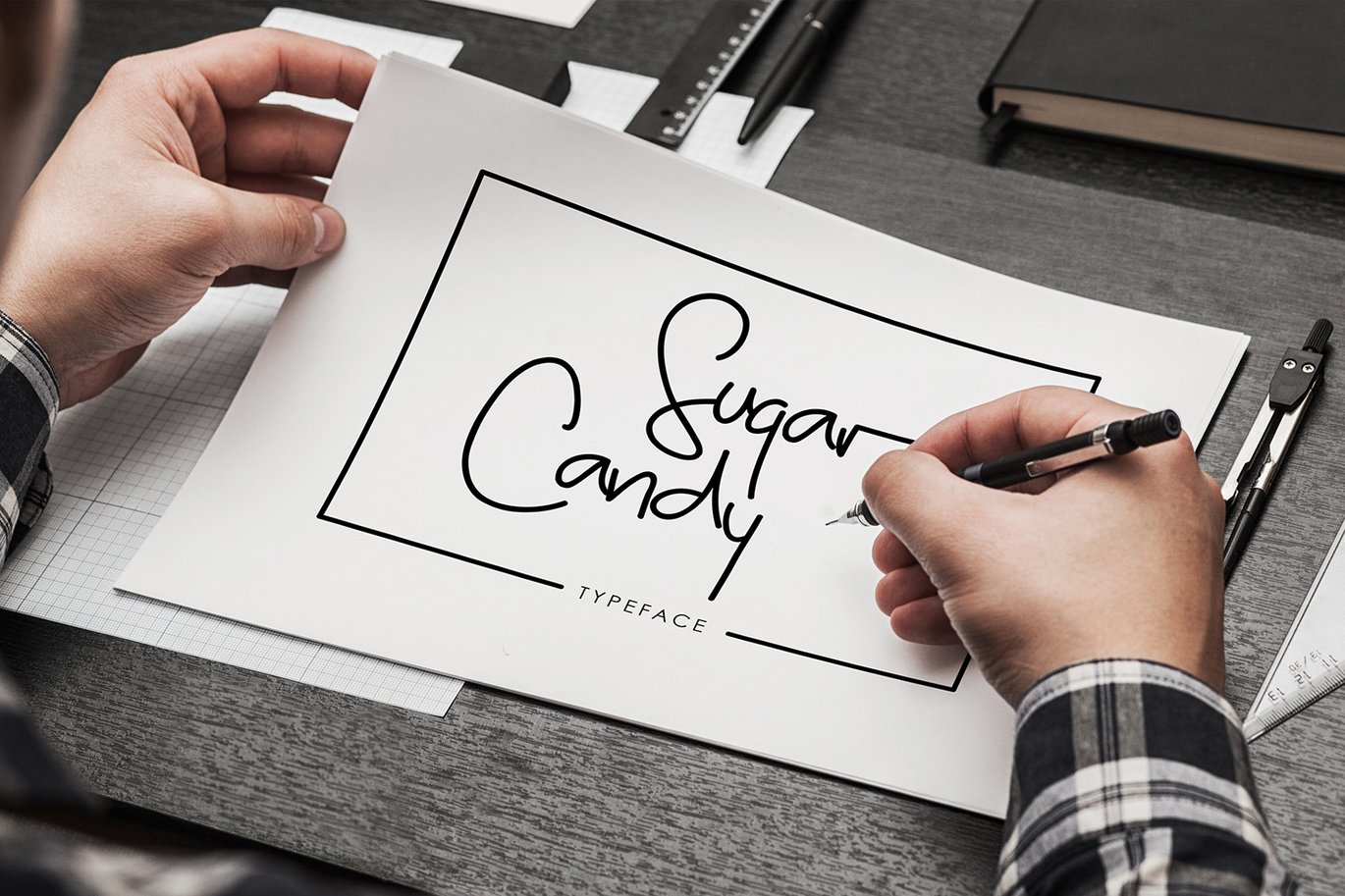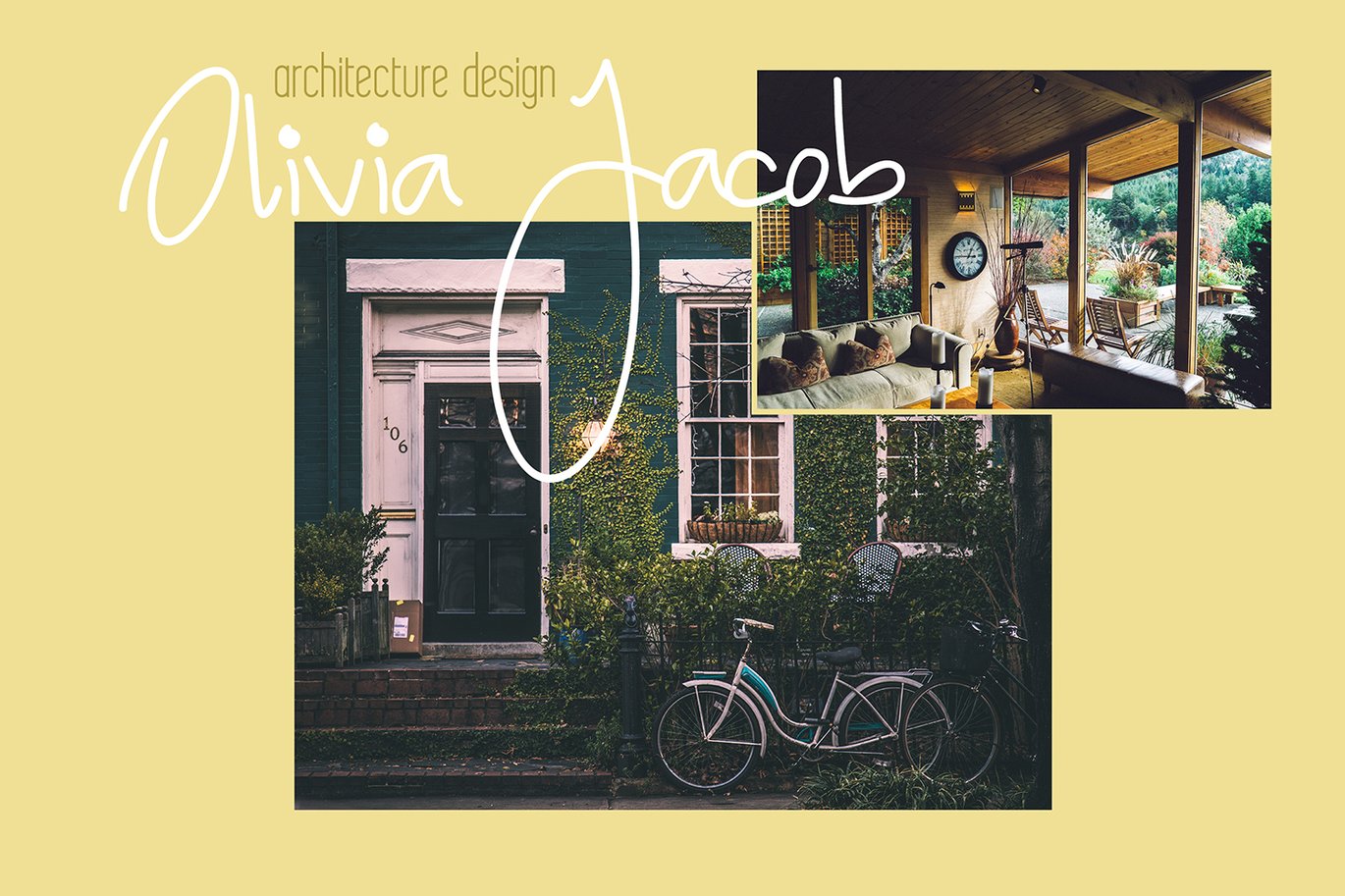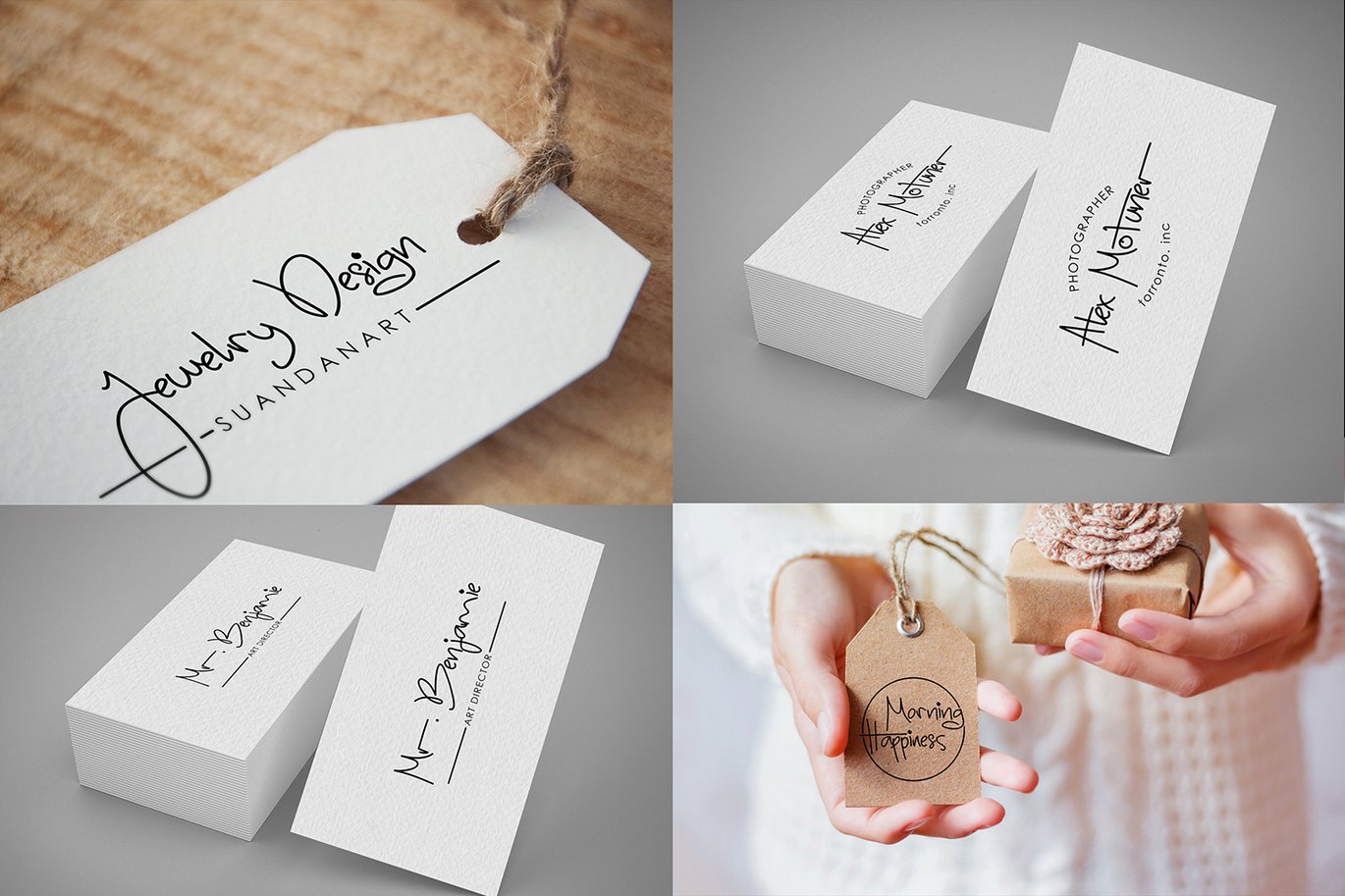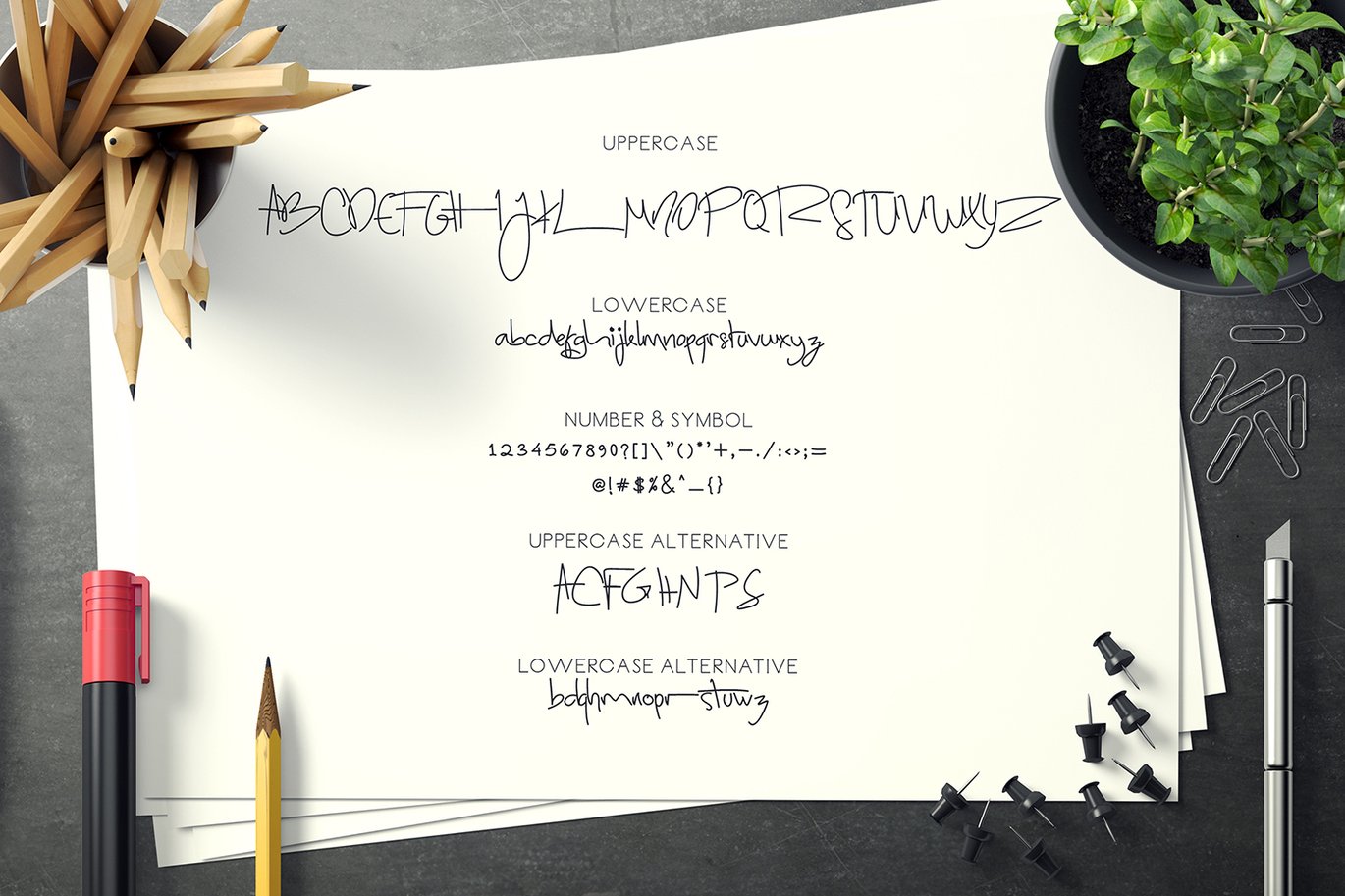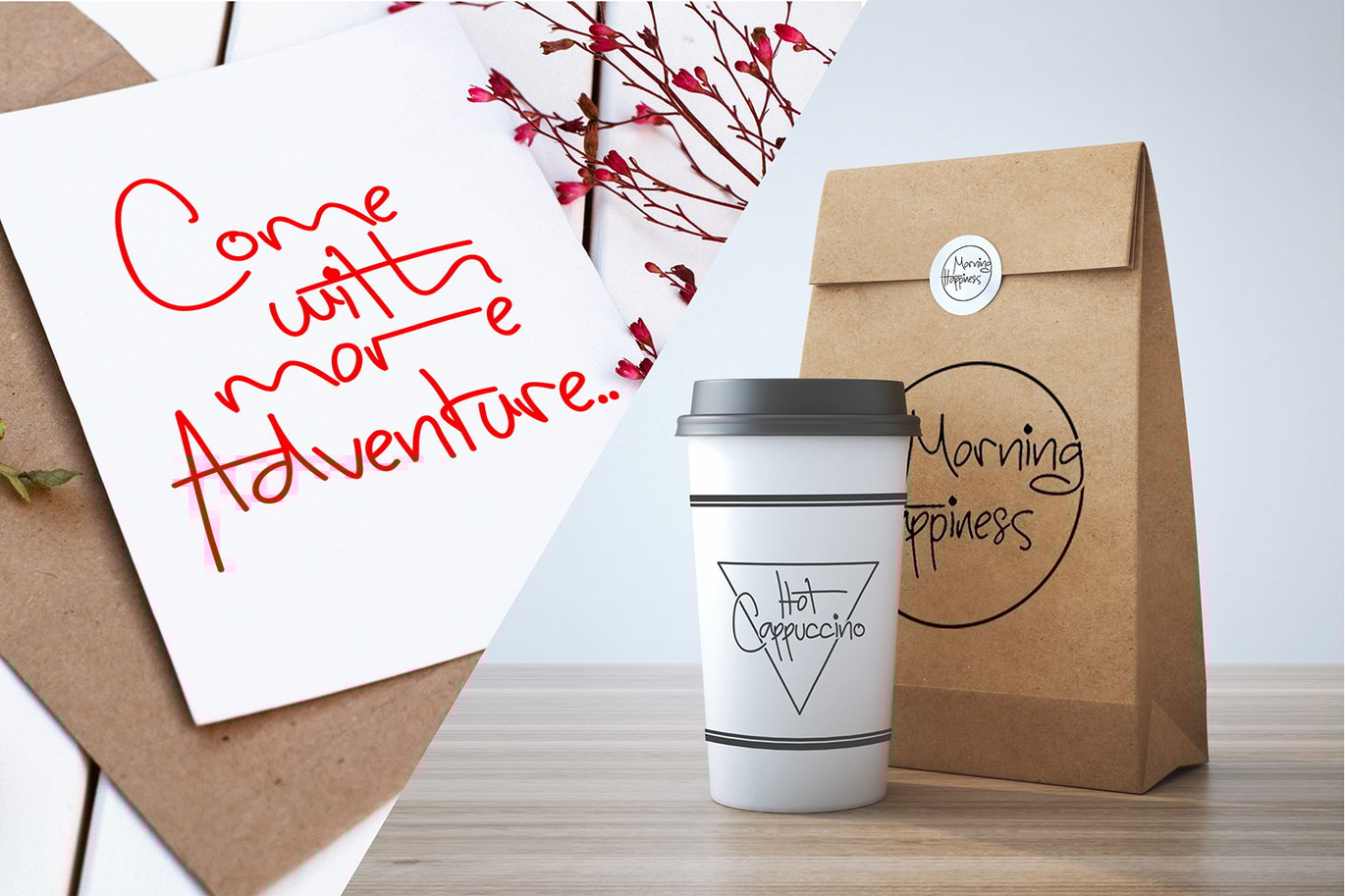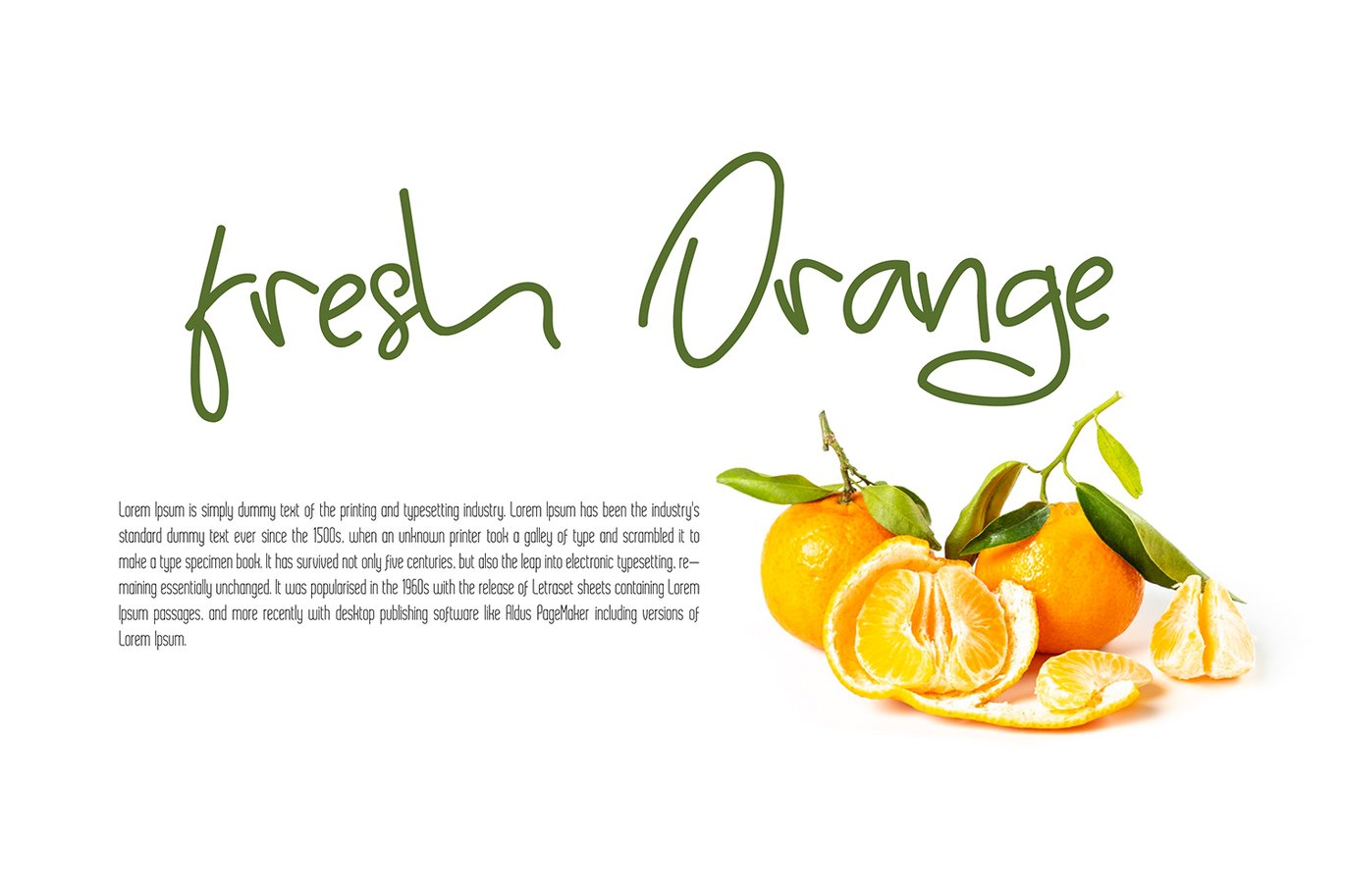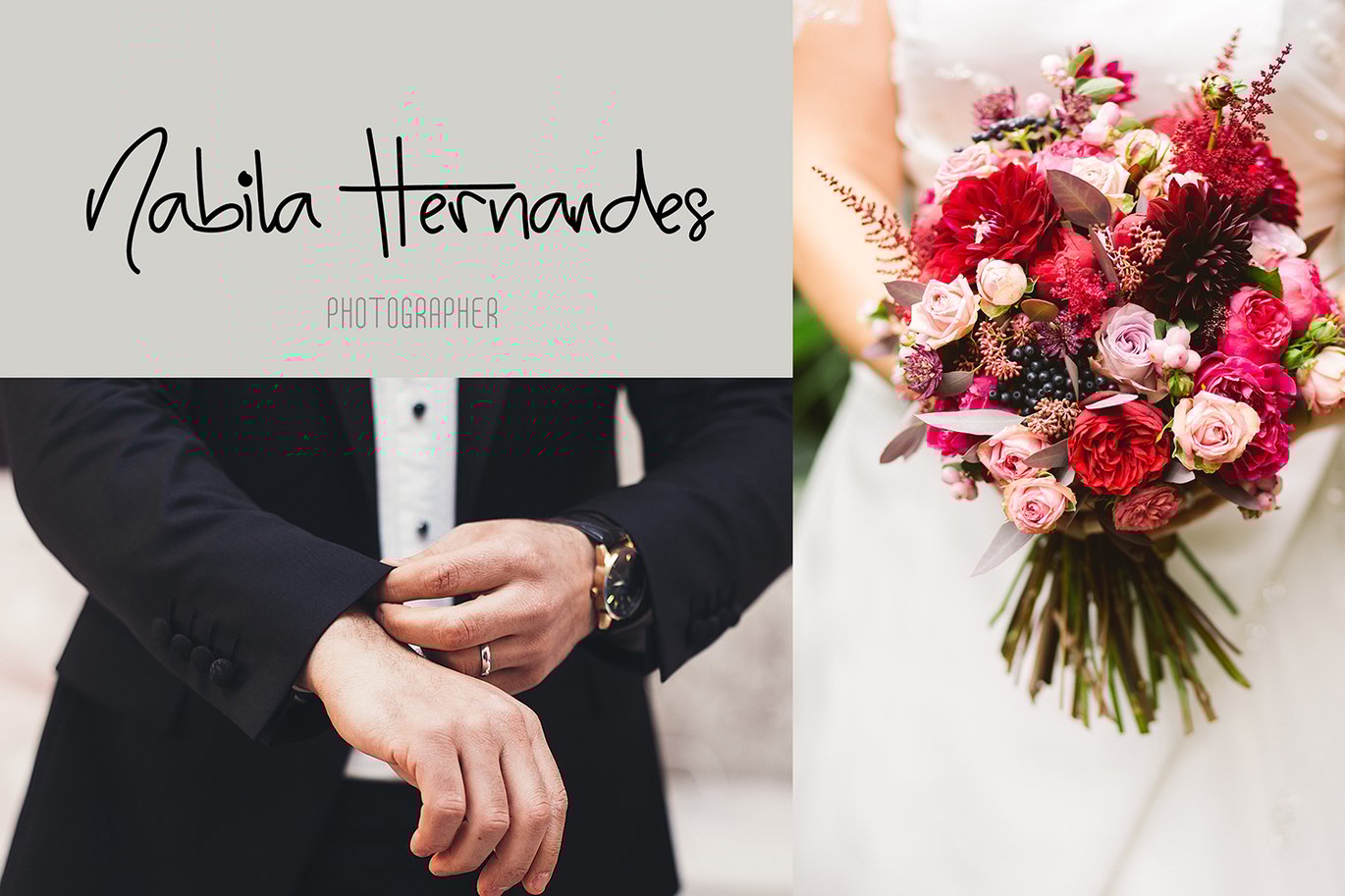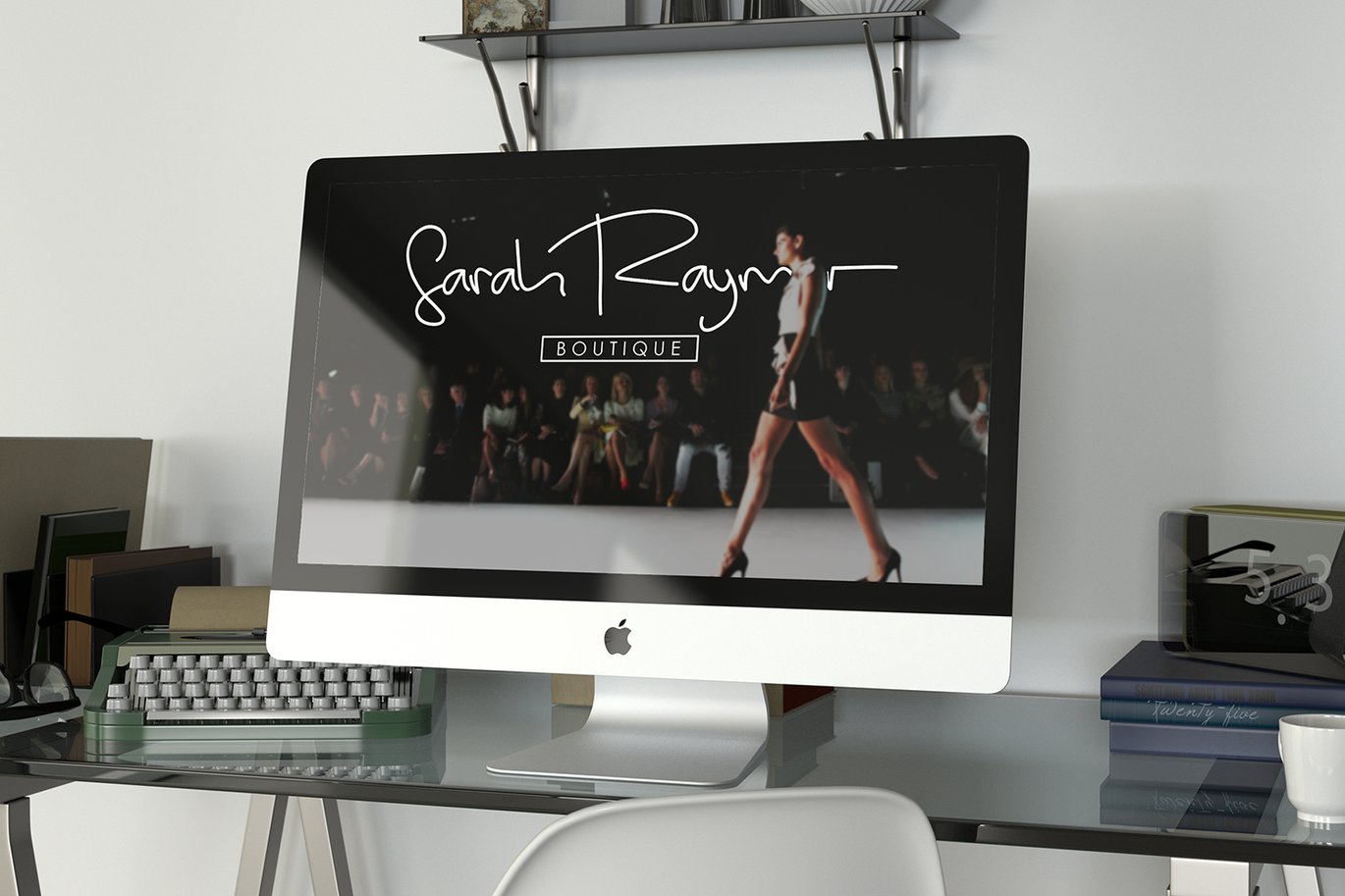
Sugar Candy Signature Font
Sugar Candy is a Signature typeface font inspired from classic handwriting style. Suitable to create any branding, product packaging, invitation, quotes, t-shirt, label poster etc.
Feature
*Uppercase
*Lowercase
*Number & Symbol
*Alternative